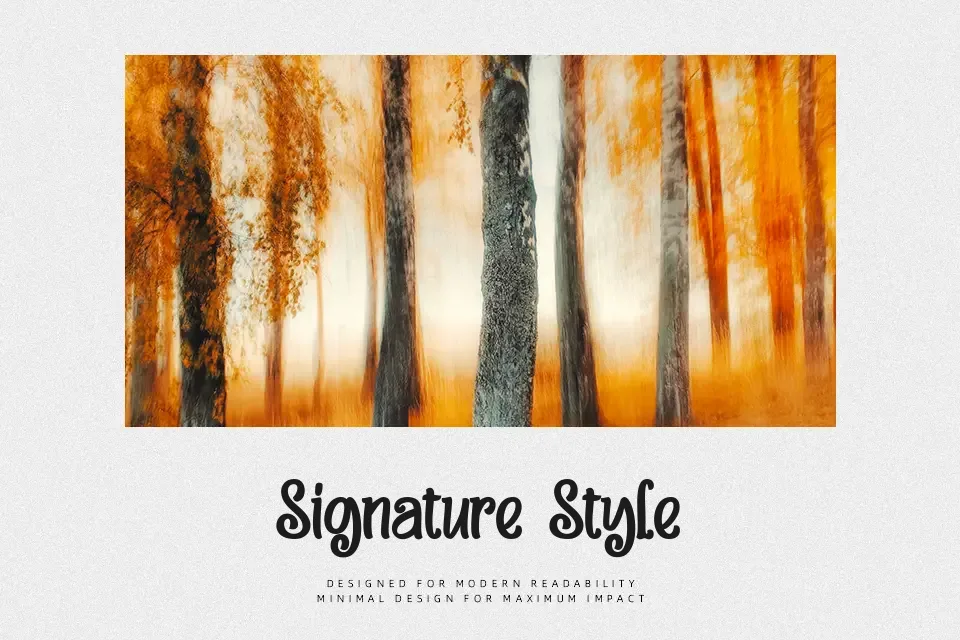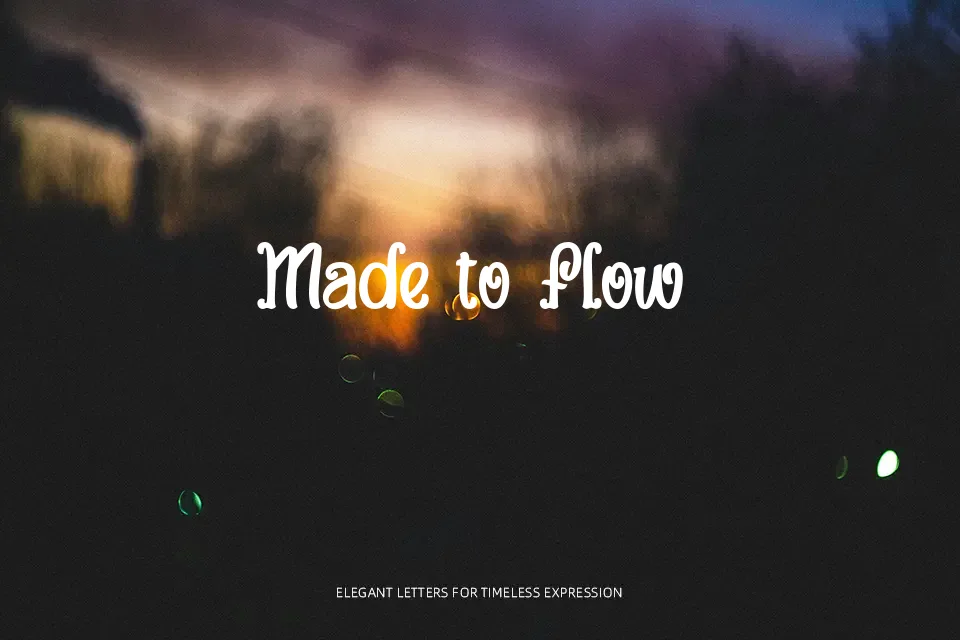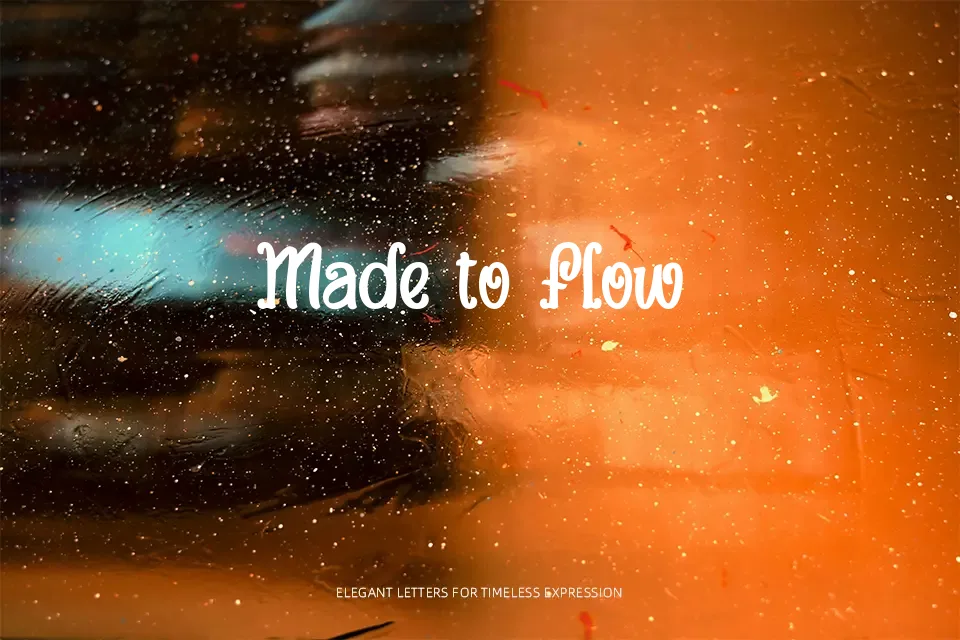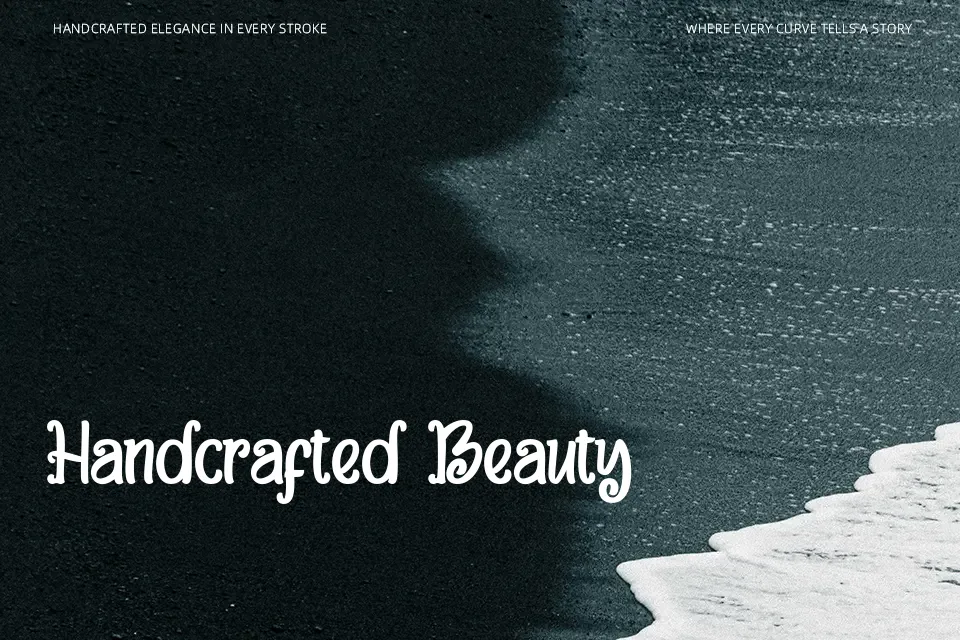
Sweet Peas Font
Sweet Peas Font uses tall, loosely proportioned handwritten letterforms with curling strokes, rounded movement, and decorative terminals. The characters create an airy, expressive rhythm, while the visible lowercase forms add a casual calligraphic feel to short words and names. It works most comfortably in prominent display settings such as invitation headings, packaging labels, or social posts, where its details remain visible. The spacing helps individual letters retain their shape in larger text. At small sizes, however, the curls and narrow interior spaces can reduce clarity, making it less practical for compact captions or continuous reading.
Best For: wedding invitation headings,feminine product packaging,social media quote graphics,boutique logo concepts
Perfect for invitation, logo, and packaging, with a artistic and calligraphy style.